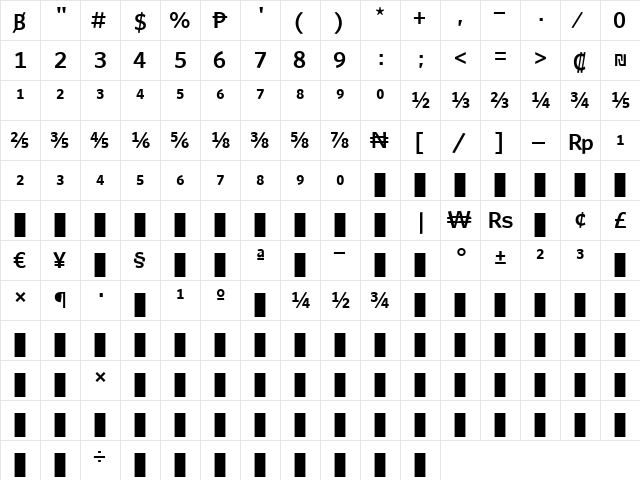
WhitneyNumeric Medium
Design Context for WhitneyNumeric Typeface
WhitneyNumeric takes a measured approach to typography — its balanced proportions and neutral character make it a reliable workhorse for both digital and print work.